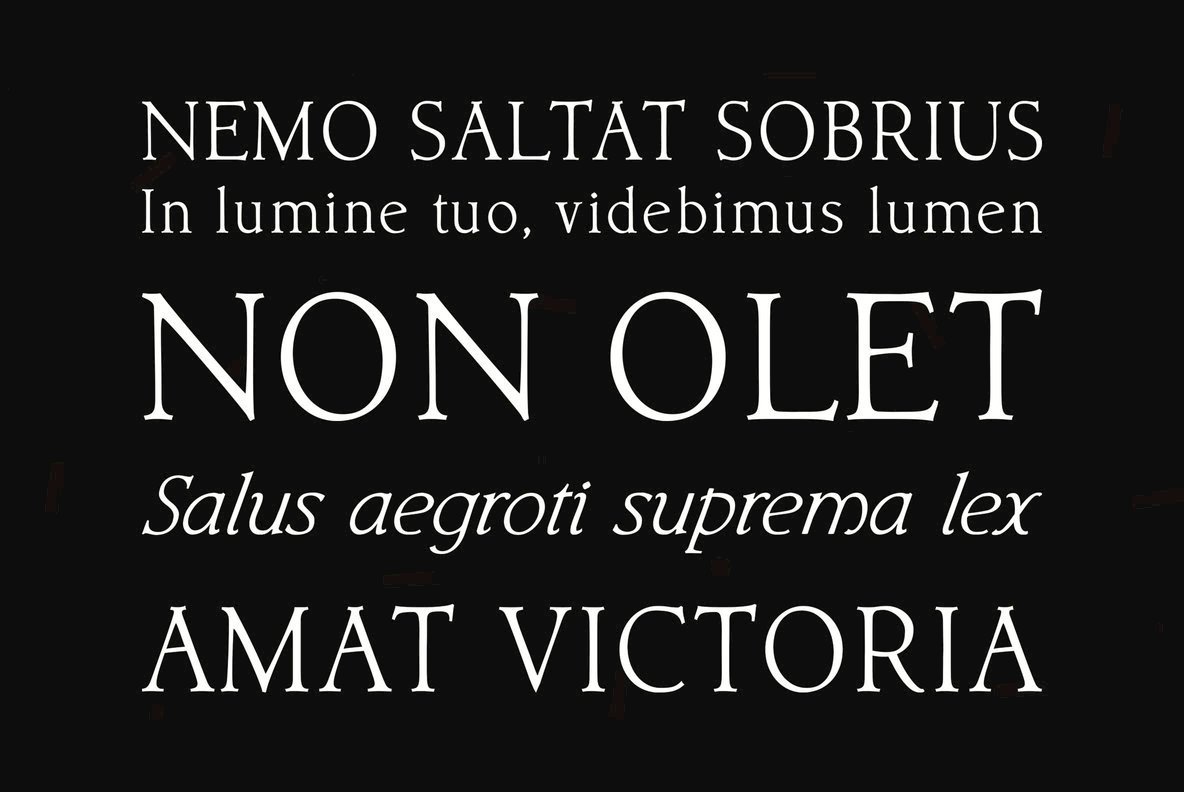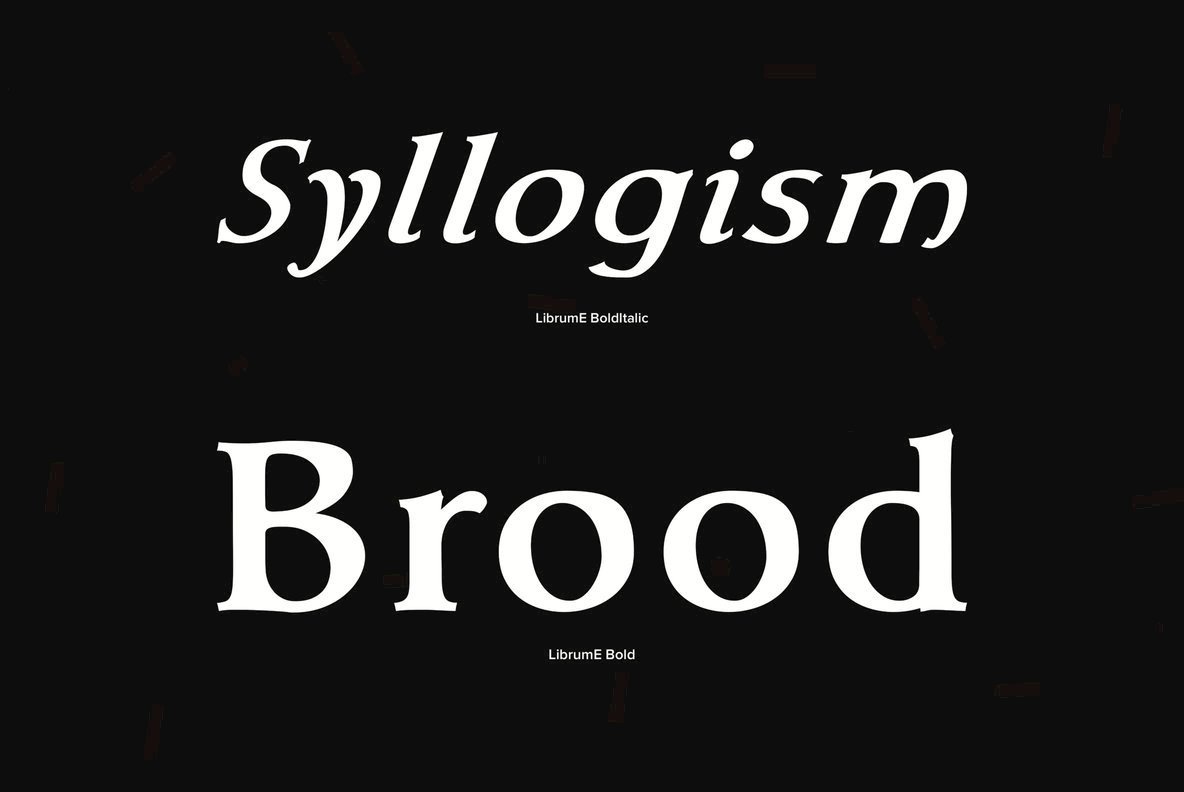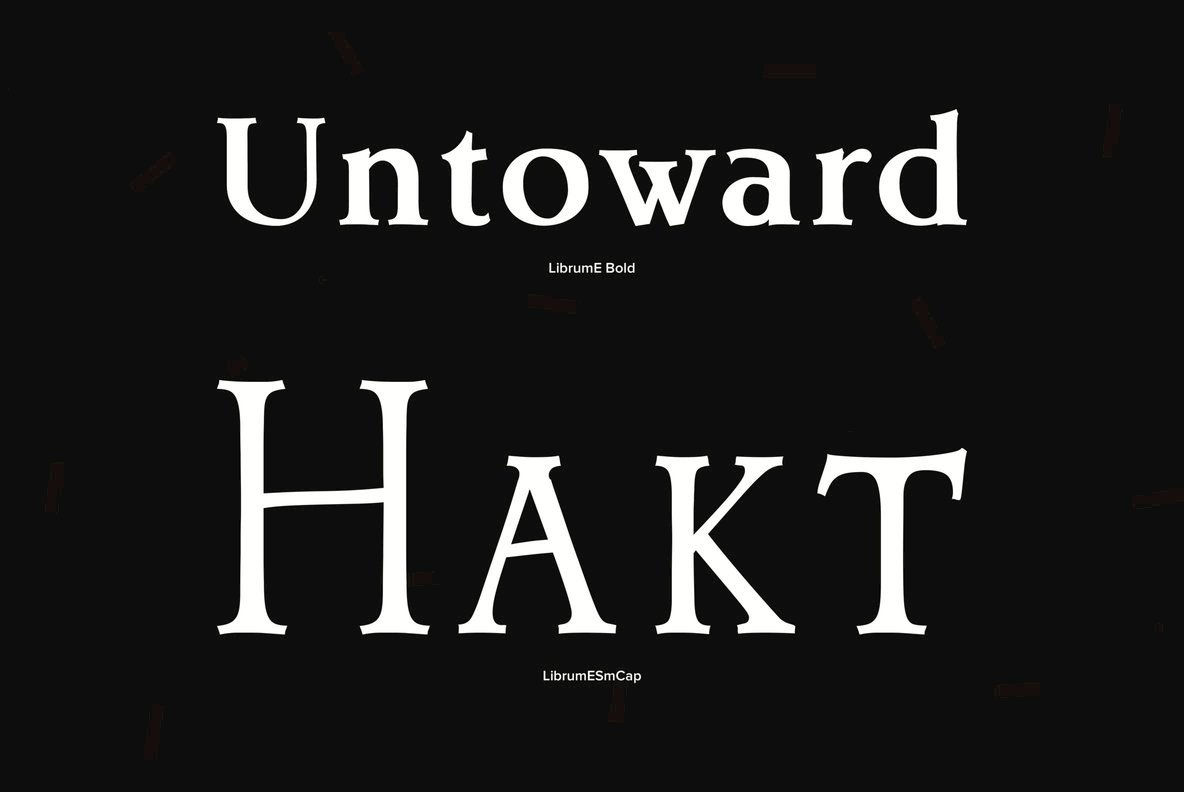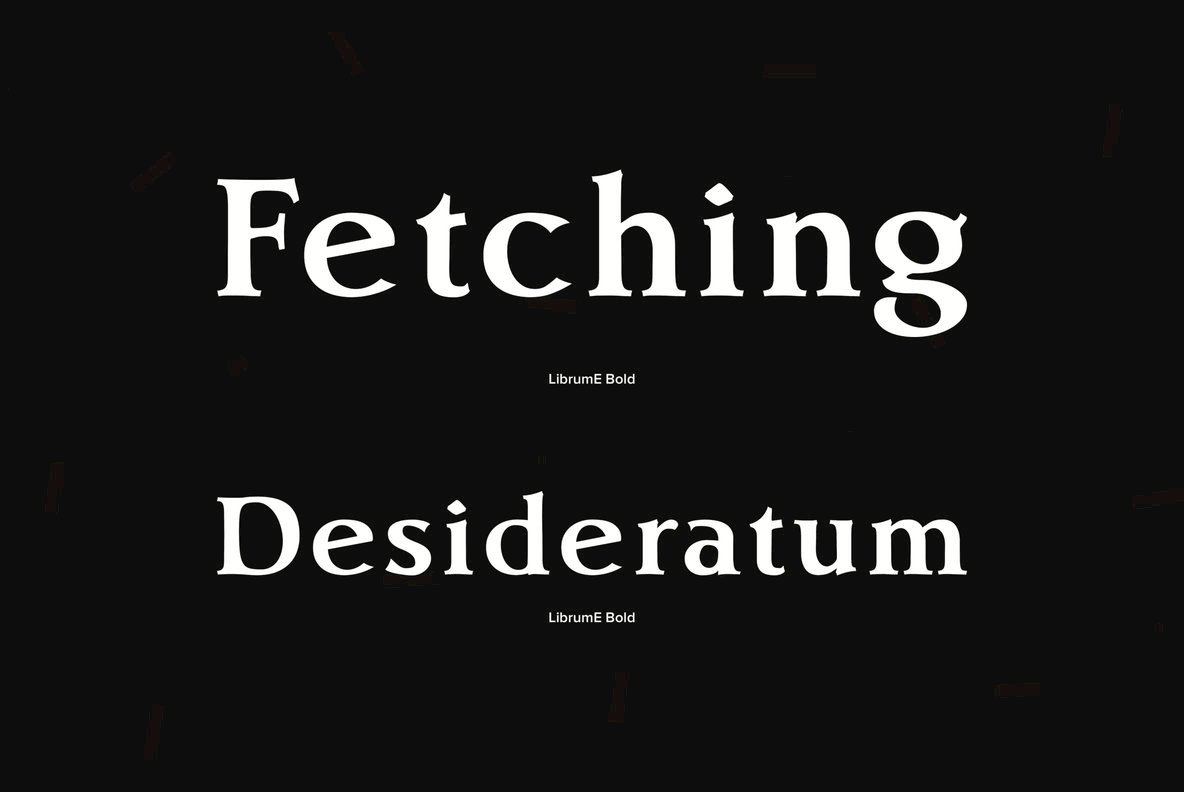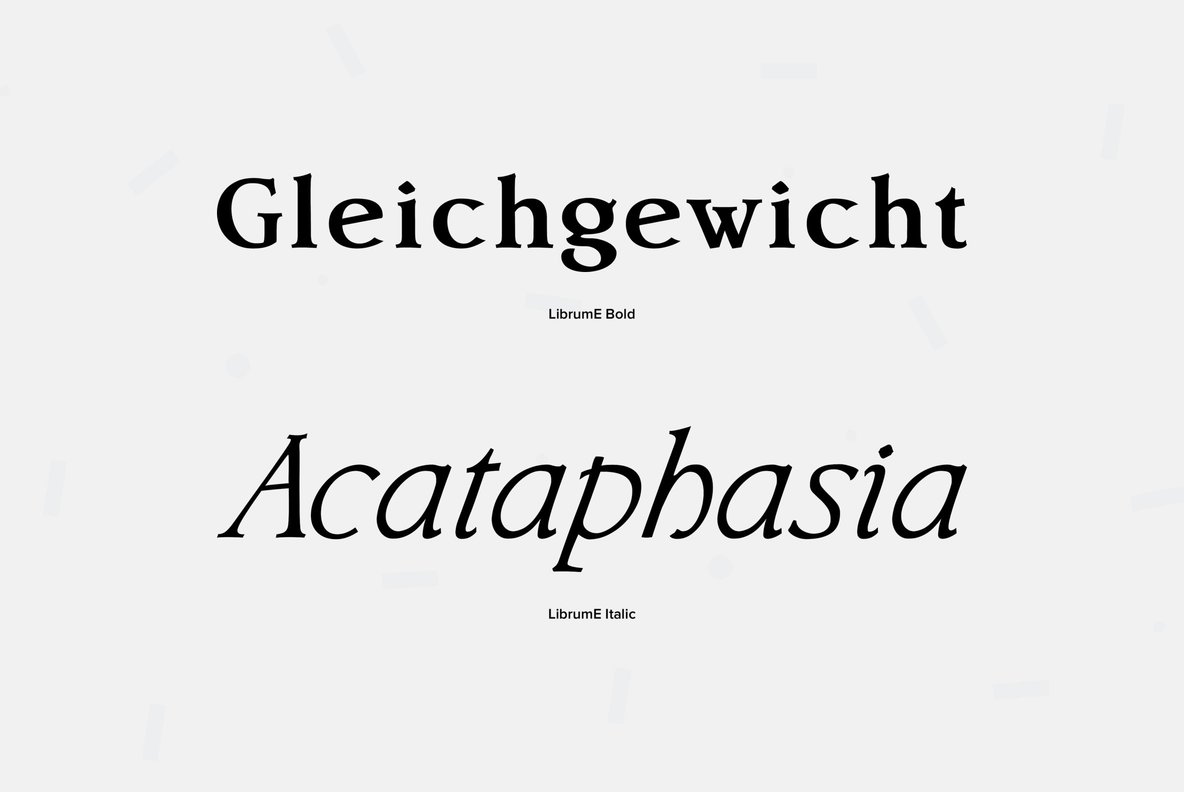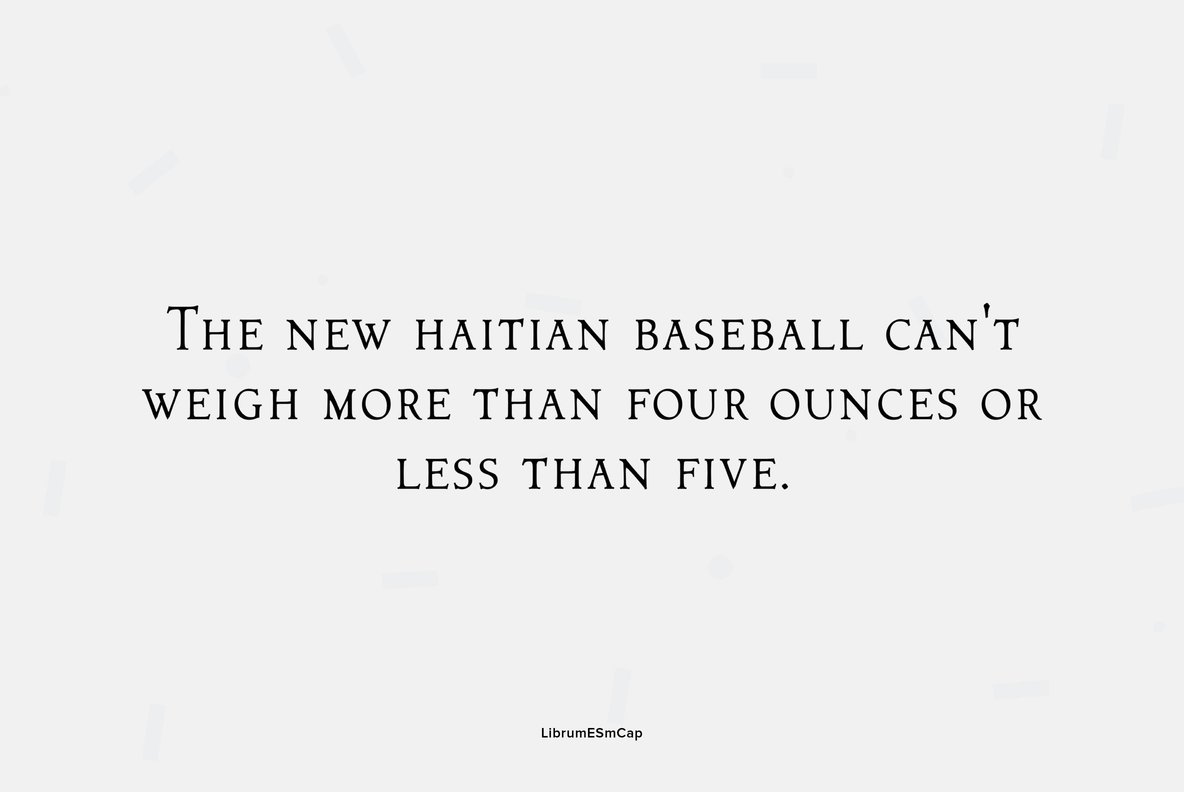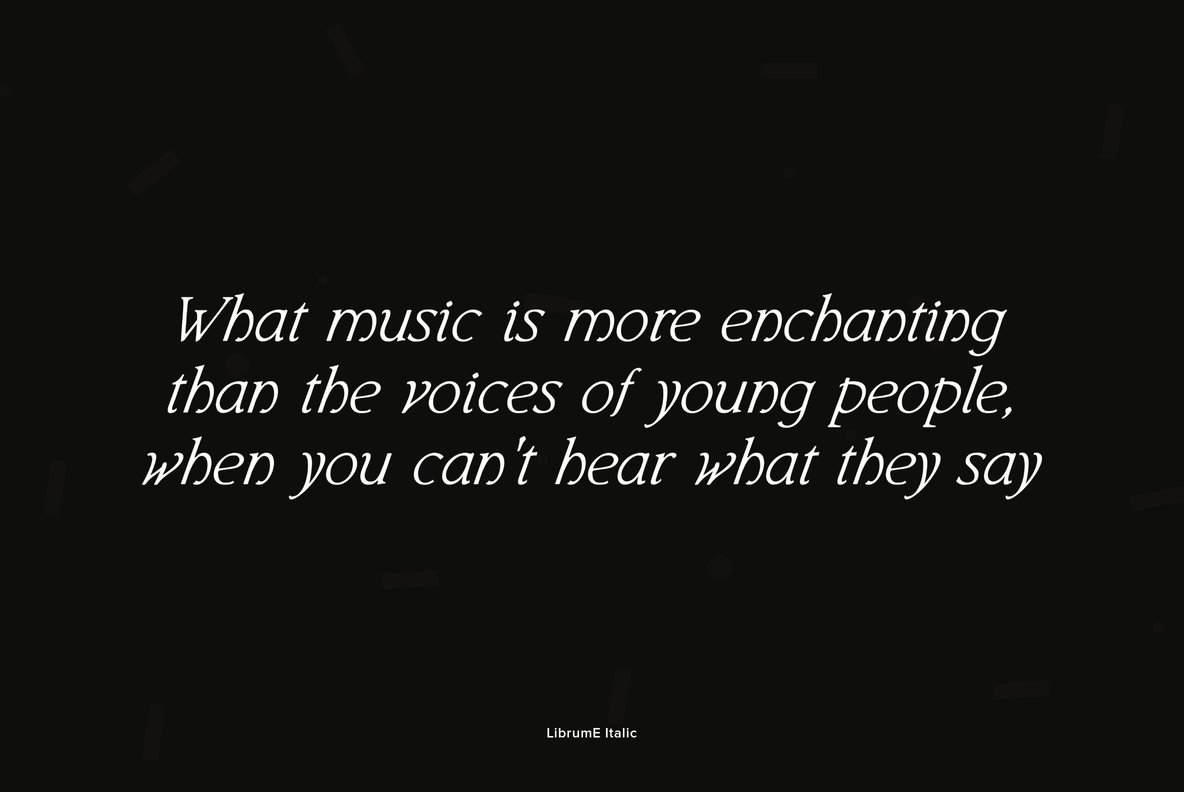
Librum E Font
The major focus of my life and ministry at this point is book design. In the brave new world of 21st century self-publishing a new paradigm has arisen: the indie small shop. One of the problems is that all books are published as ebooks, and many books are published only as ebooks. There are two problems with this: character availability and licensing.
The licensing problem is solved by including an ebook license with all of the Librum, Librum E, Librum Sans and Bream fonts. The character availability is the core of the design. OpenType features do not work yet with ePUBs [though it is in the spec, if I understand correctly]. Kerning doesn't work, and so on.
So these five fonts have only the 256-character [or less] ASCII set. A separate small caps is included. It has lining figures {proportional} and small caps instead of the graphics. The other four fonts have graphics to give bullet choices in lists, oldstyle figures {proportional}, and care given to character shapes so they will work better without kerning.